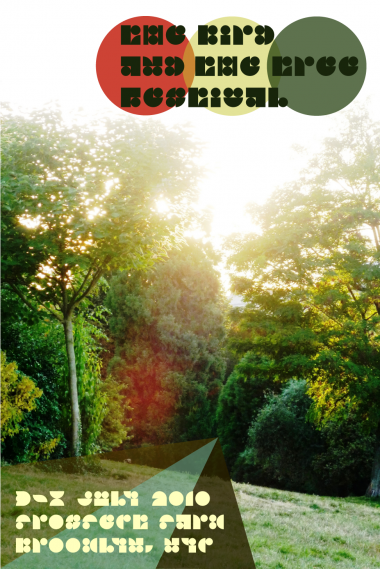
IR Playground Ball
Same family as
IR Playground Block
and
IR Playground Cut
, but more fanciful and less readable.
Immediate impact !
definitely my favourite of your playground series. It has a much more original flavour than the two others that reminds many alike fonts. 10/10